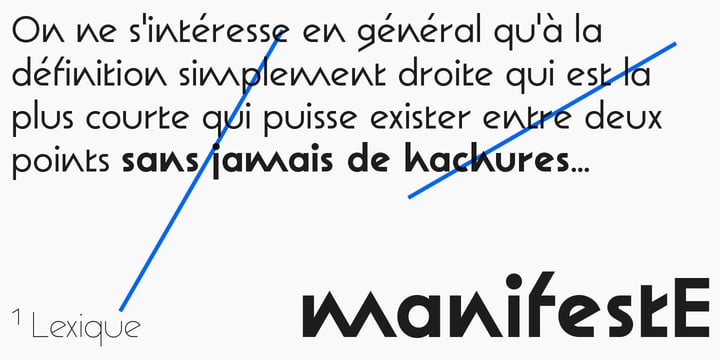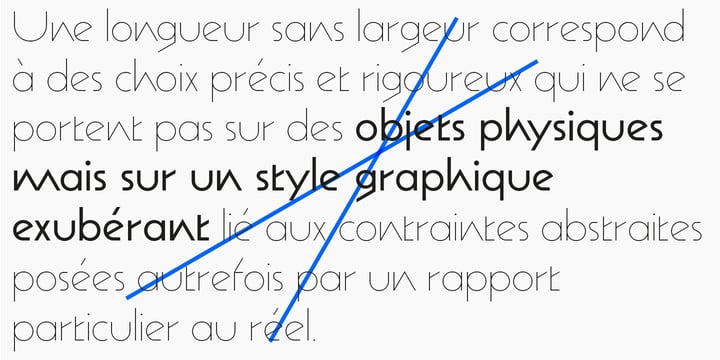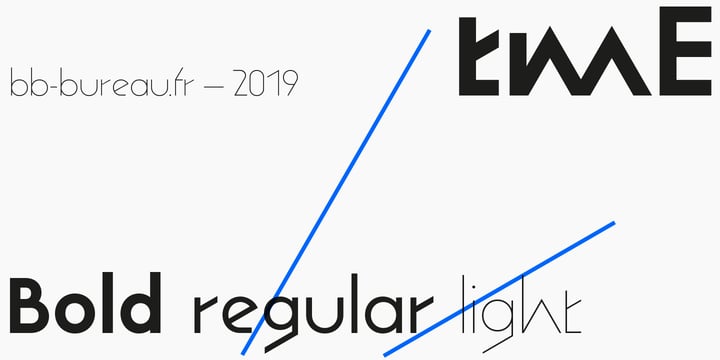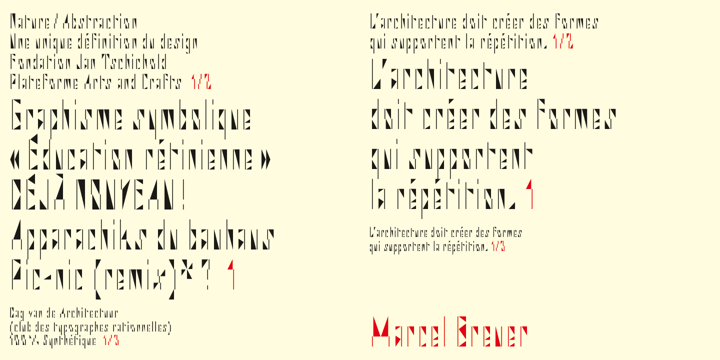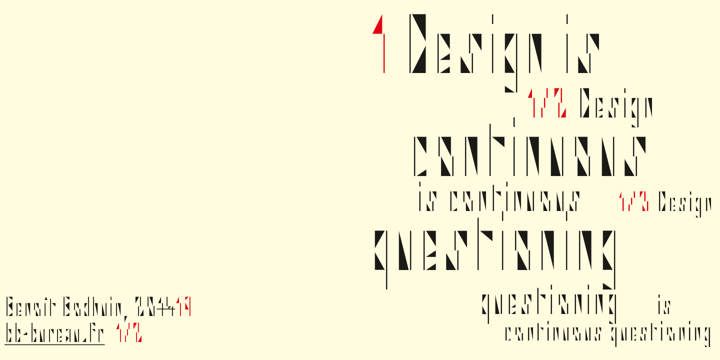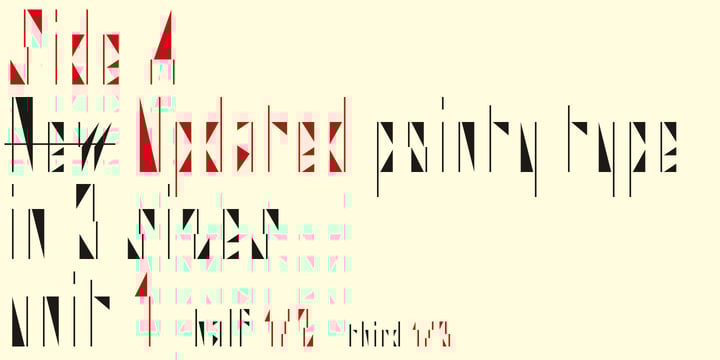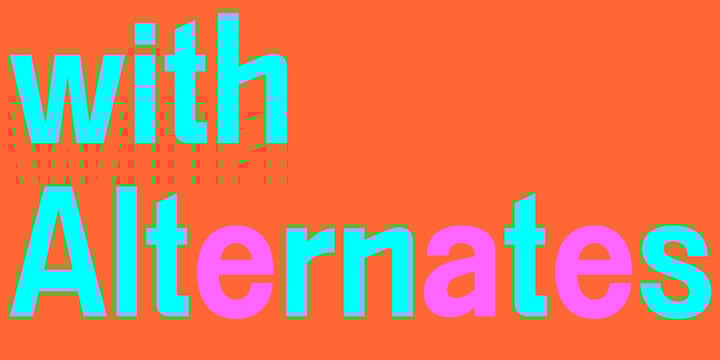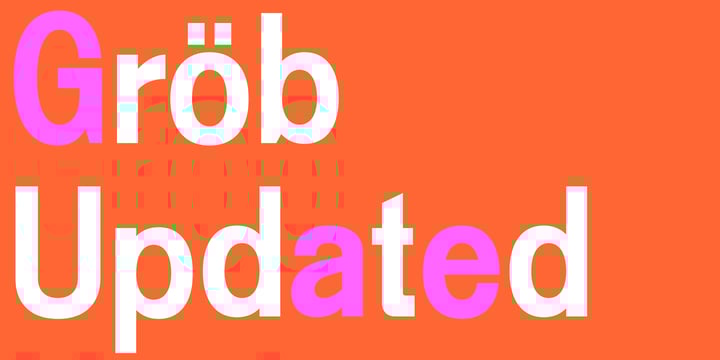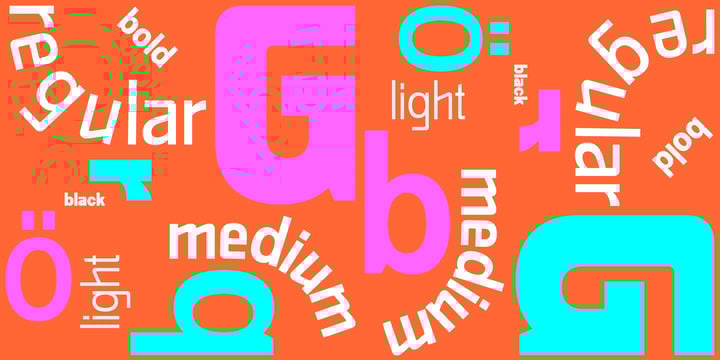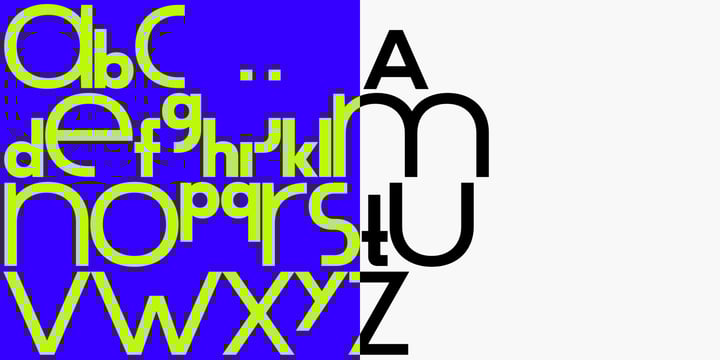
Benoît Bodhuin
Benoît Bodhuin is the designer and typographer of the office of creation, bb-bureau. Entertainer of the discipline, mad of geometrical pattern, author of the graphic identity of the University of Arts Saint-Luc of Tournai, for which he draws the typography S-L… Benoît Bodhuin continues his experiments around typographical, with the tubular typography, la Pipo… He offers his fonts through his personal bb-bureau foundry.